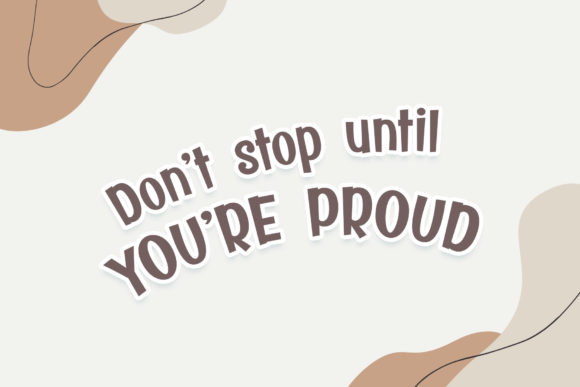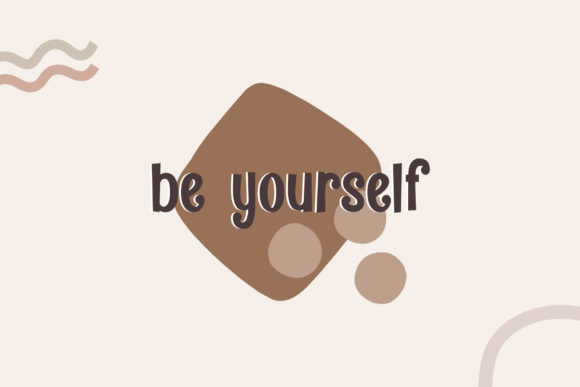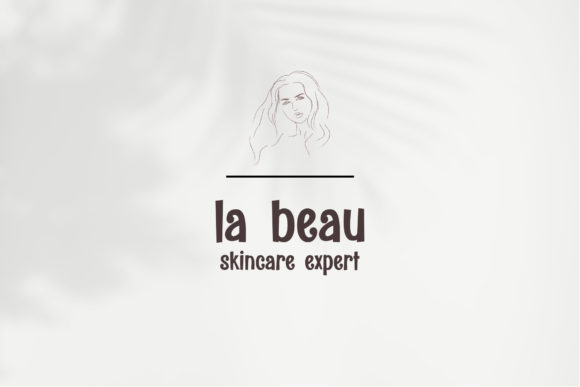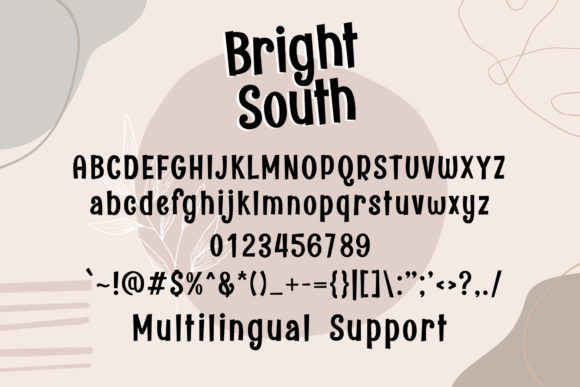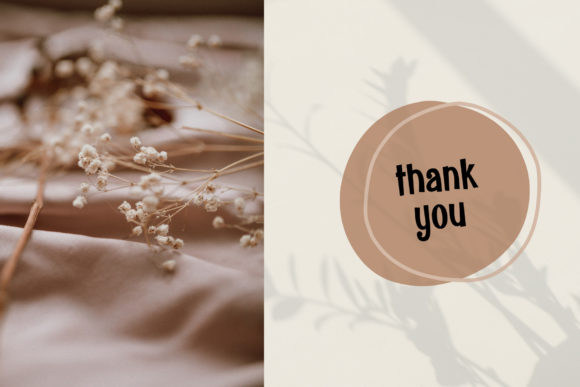
Introducing Bright South Font: The Perfect Addition to Your Design Projects
Are you tired of using the same old fonts in your design projects? Look no further than Bright South Font, a cute and charming display font that’s sure to brighten up your designs. With its whimsical and quirky style, this font is perfect for designers and crafters looking to add a touch of personality to their work.
What Makes Bright South Font So Special?
Bright South Font is a unique and eye-catching font that’s sure to make your designs stand out. Its playful and charming style makes it perfect for a variety of projects, from branding and advertising to packaging and signage. Whether you’re working on a children’s book, a craft project, or a marketing campaign, Bright South Font is sure to add a touch of magic to your designs.
Key Features of Bright South Font
- Cute and charming display font: Bright South Font is a beautifully designed font that’s perfect for headlines, titles, and other display text.
- Whimsical and quirky style: This font has a playful and charming style that’s sure to add a touch of personality to your designs.
- Perfect for a variety of projects: From branding and advertising to packaging and signage, Bright South Font is versatile enough to be used in a wide range of projects.
- Easy to read and understand: Despite its playful style, Bright South Font is easy to read and understand, making it perfect for use in body text as well as display text.
Tips for Getting the Most Out of Bright South Font
- Use it as a headline font: Bright South Font is perfect for use as a headline font, where its playful and charming style can really shine.
- Pair it with other fonts: Bright South Font pairs well with a variety of other fonts, including serif and sans serif fonts. Try pairing it with a clean and simple font to create a striking contrast.
- Experiment with different colors and textures: Bright South Font looks great in a variety of colors and textures. Try experimenting with different colors and textures to find the look that works best for your design.
Who Can Benefit from Using Bright South Font?
Bright South Font is perfect for a wide range of designers and crafters, including:
- Graphic designers: Bright South Font is perfect for use in a variety of graphic design projects, from branding and advertising to packaging and signage.
- Crafters: Bright South Font is perfect for use in craft projects, such as scrapbooking, card making, and other paper crafts.
- Marketers: Bright South Font is perfect for use in marketing campaigns, where its playful and charming style can help to grab attention and build brand awareness.
In conclusion, Bright South Font is a cute and charming display font that’s perfect for designers and crafters looking to add a touch of personality to their work. With its whimsical and quirky style, this font is sure to brighten up your designs and make them stand out. Whether you’re working on a graphic design project, a craft project, or a marketing campaign, Bright South Font is a great choice.